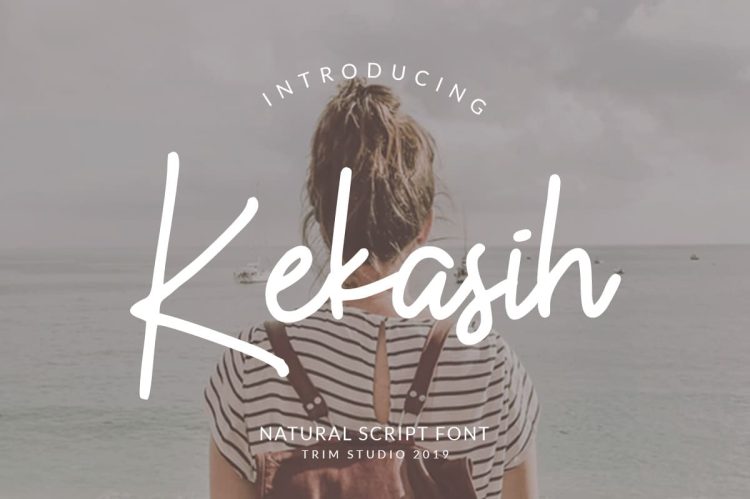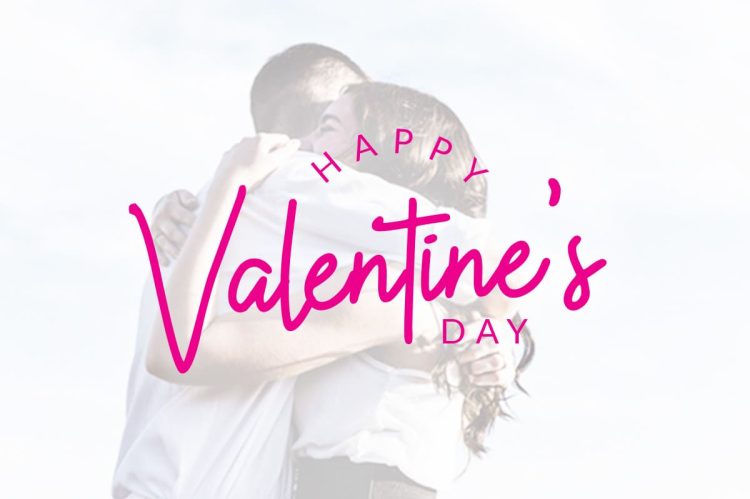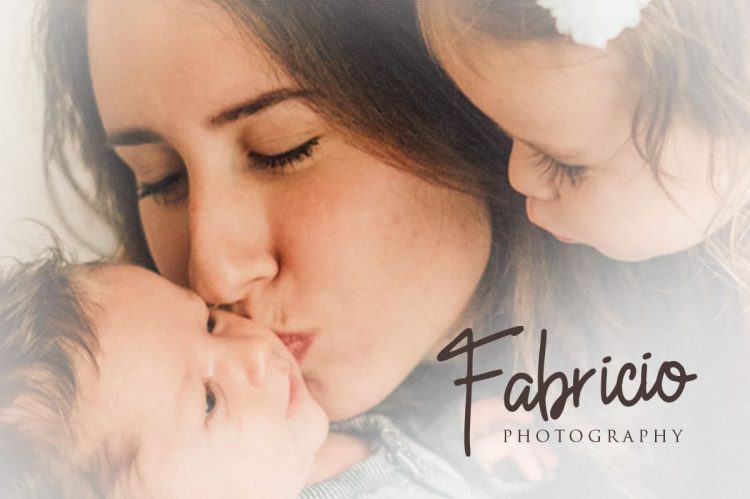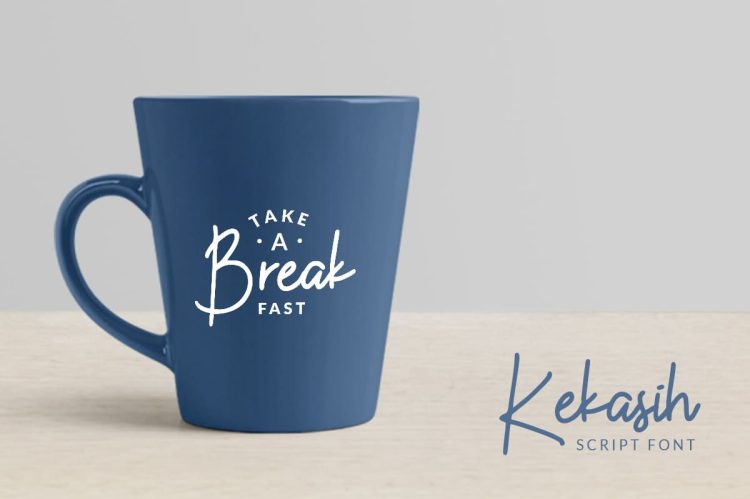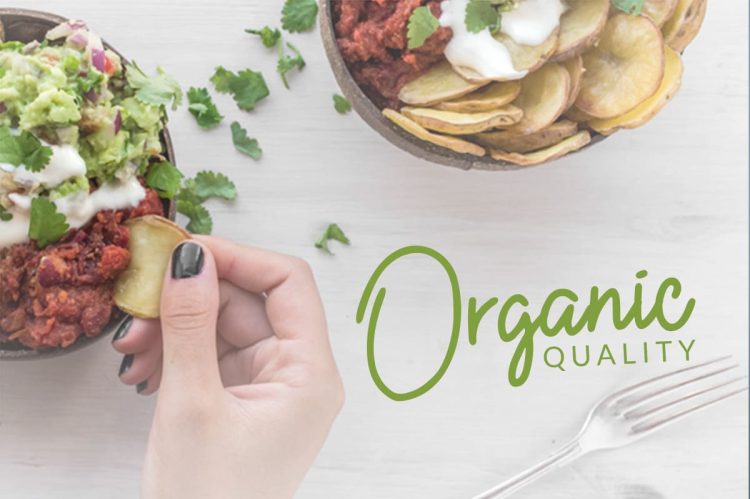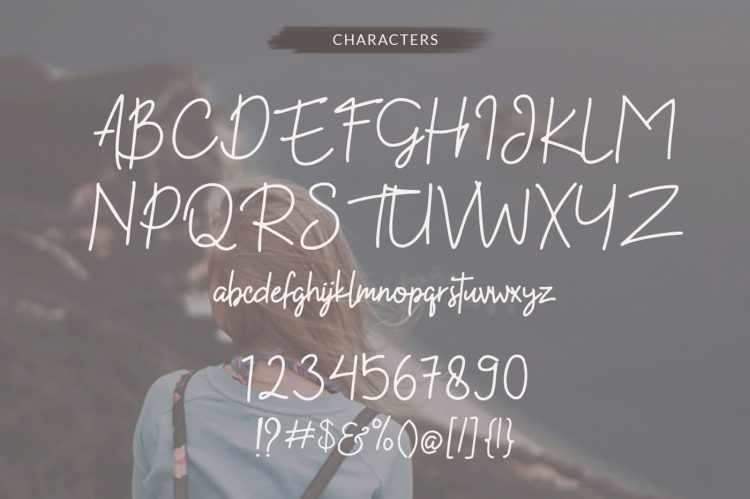
The Kekasih Typeface is a natural, fresh, handwritten font that’s following a sophisticated script-style.It’s suitable for media branding projects, signatures, logos, wedding designs, social media, product packaging, product designs, label, photography, watermark, invitation, and every other design that needs a handwritten touch.